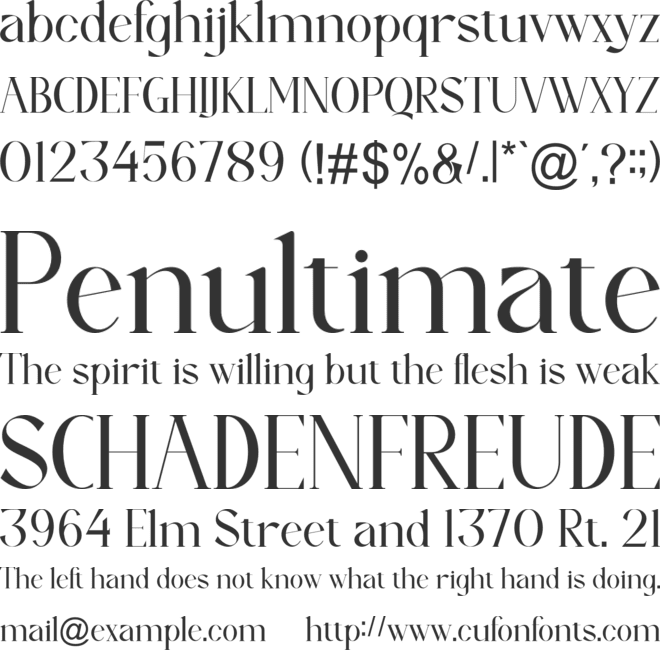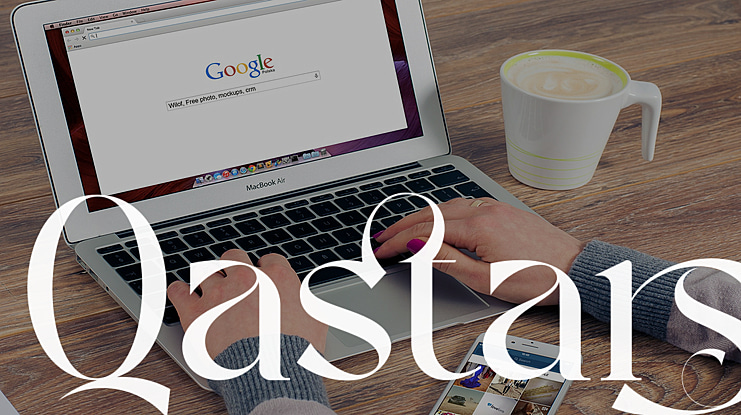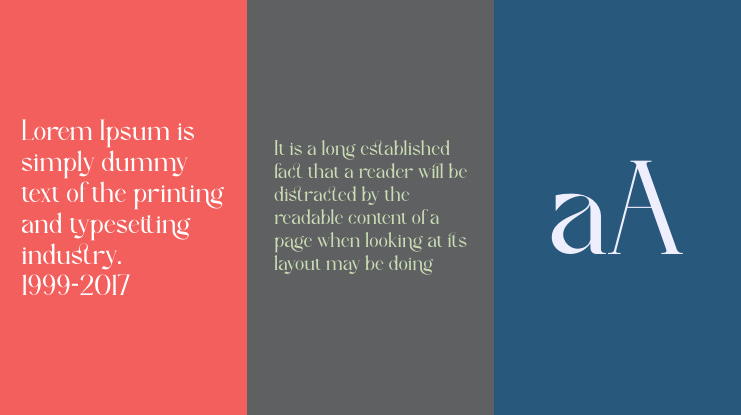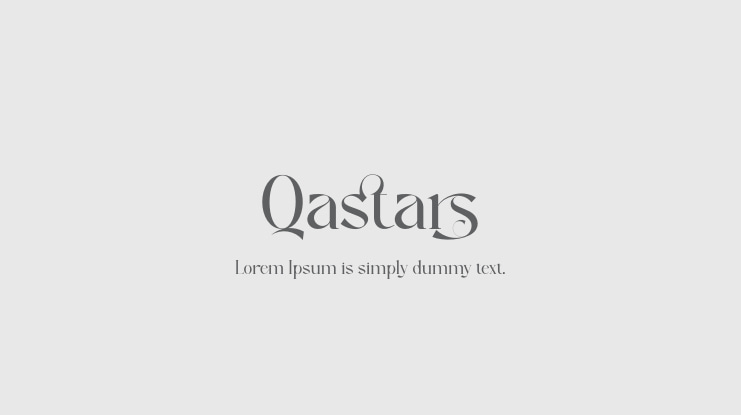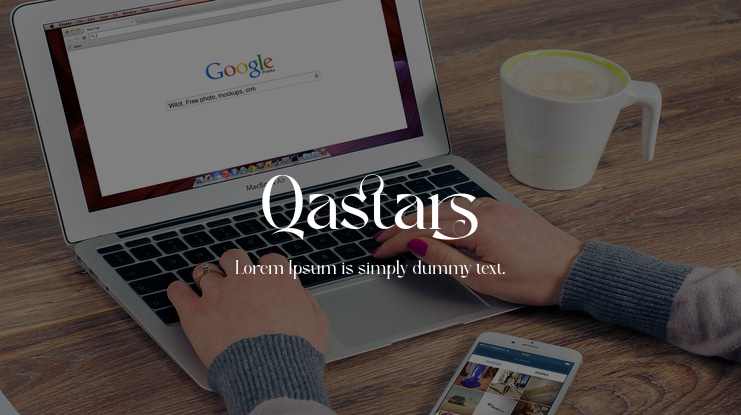
Qastars Font
If you’re looking for a modern serif typeface to attract your audiences or customers then we’ve got the font for you! Qastars is a very elegant modern serif typeface that is designed for each letter smoothly and has many ligatures and letter alternatives that are easy to use to make variations on each letter.
The font is very suitable for use for graphic design purposes, magazine covers, identity brand names, invitation cards and much more.